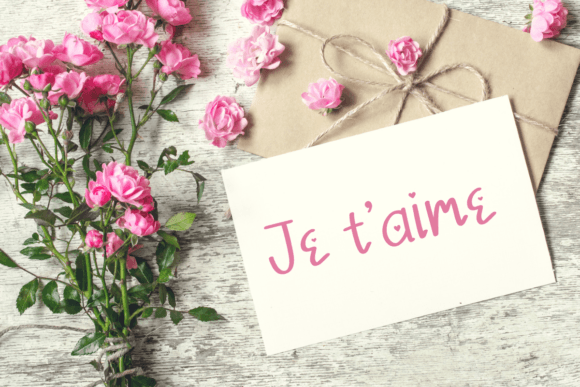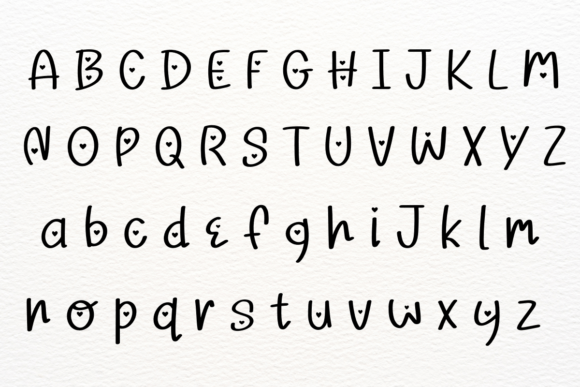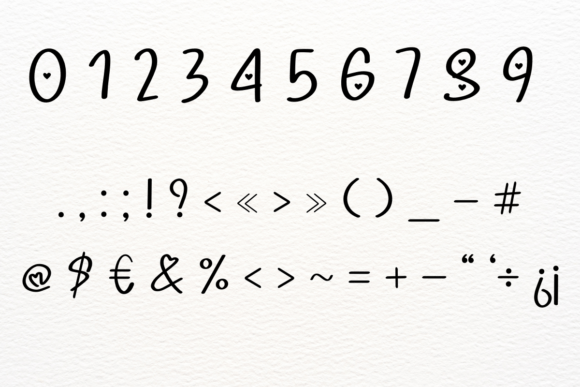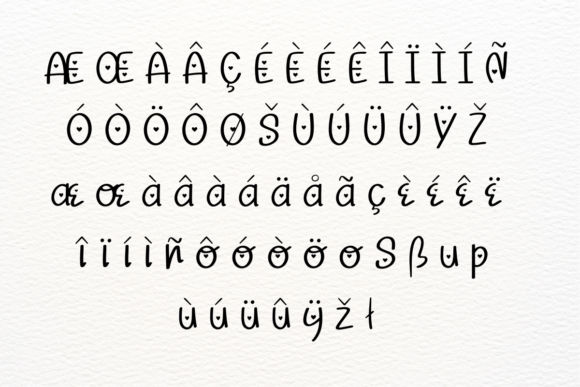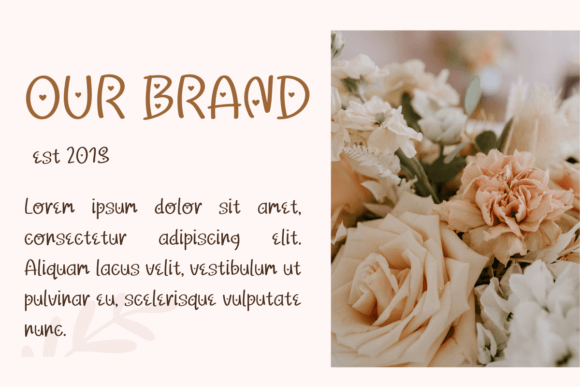
Introducing February Font: The Ultimate Decorative Handwritten Font for Designers and Crafters
Are you looking for a font that can add a touch of romance and playfulness to your designs? Look no further than February Font, a delightful decorative handwritten font that is sure to warm your heart. With its whimsical flair and adorable hearts, this font is perfect for designers and crafters who want to create beautiful and eye-catching projects.
What Makes February Font Special?
February Font is more than just a font – it’s an experience. Its whimsical design and adorable hearts make it perfect for creating projects that require a touch of romance and playfulness. Whether you’re creating invitations, greeting cards, posters, or any other type of design, February Font brings an extra dose of sweetness to your messages.
One of the things that sets February Font apart from other fonts is its unique and adorable hearts. These hearts are sprinkled throughout the font, adding a touch of love and joy to your designs. Whether you’re creating a heartfelt invitation or a romantic greeting card, February Font’s hearts are sure to make your project stand out.
February Font is perfect for designers and crafters who want to create beautiful and eye-catching projects. Its decorative handwritten design makes it perfect for a variety of projects, including:
- Heartfelt invitations: Create beautiful and romantic invitations for weddings, anniversaries, and other special occasions.
- Romantic greeting cards: Design lovely greeting cards for Valentine’s Day, Mother’s Day, and other special occasions.
- Lovely posters: Create eye-catching posters for events, promotions, and other purposes.
- DIY projects: Use February Font to add a touch of personality to your DIY projects, such as scrapbooking, journaling, and more.
Why Choose February Font?
There are many reasons why you should choose February Font for your next project. Here are just a few:
- Unique and adorable design: February Font’s whimsical design and adorable hearts make it perfect for creating eye-catching projects.
- Versatile: February Font can be used for a variety of projects, from invitations and greeting cards to posters and DIY projects.
- High-quality: February Font is a high-quality font that is designed to look great on any device or medium.
Tips for Using February Font
Here are a few tips for using February Font in your next project:
- Use it sparingly: While February Font is perfect for adding a touch of romance and playfulness to your designs, it’s best to use it sparingly. Use it for headings, titles, or special text to make it stand out.
- Pair it with other fonts: February Font looks great when paired with other fonts. Try pairing it with a simple sans-serif font for a beautiful contrast.
- Experiment with colors: February Font looks great in a variety of colors. Experiment with different colors to find the one that works best for your project.